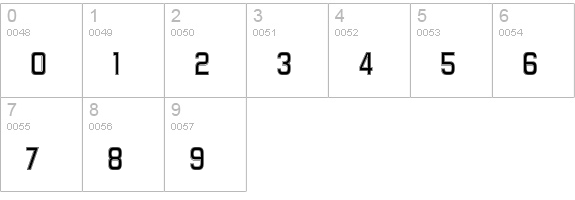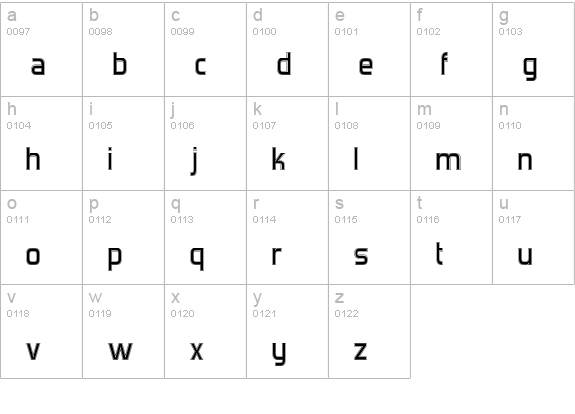
Forgotten Futurist College font is a unique and modern typeface that perfectly blends futuristic elements with classic collegiate vibes. Its sleek lines and sharp edges exude a sense of innovation and creativity, making it an ideal choice for projects that require a bold and forward-thinking aesthetic. This font is designed to make a statement and stand out from the crowd, while still maintaining a sense of sophistication and elegance. One of the best things about Forgotten Futurist College font is that it is completely free to download at FontsMarket.com. This means that you can easily access this versatile and eye-catching font without any cost, making it a valuable addition to your font library. Whether you are working on branding, advertising, web design, or any other creative project, Forgotten Futurist College font is sure to help you make a lasting impression. Download it today and unleash your creativity with this striking and impactful typeface.